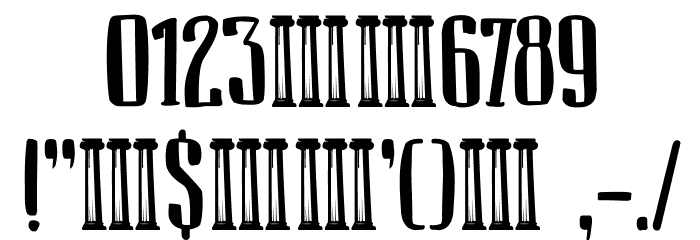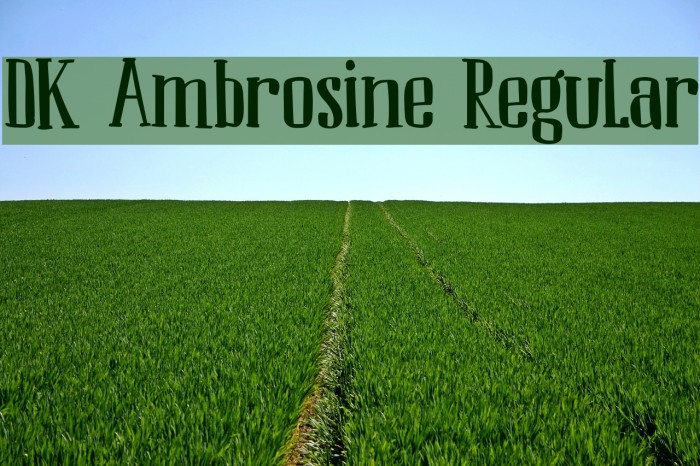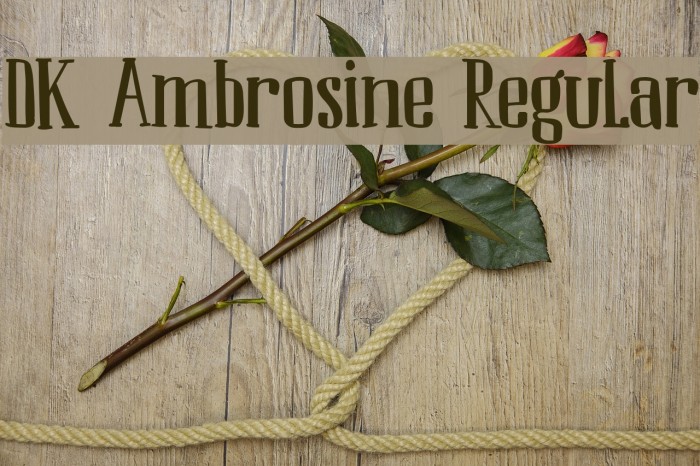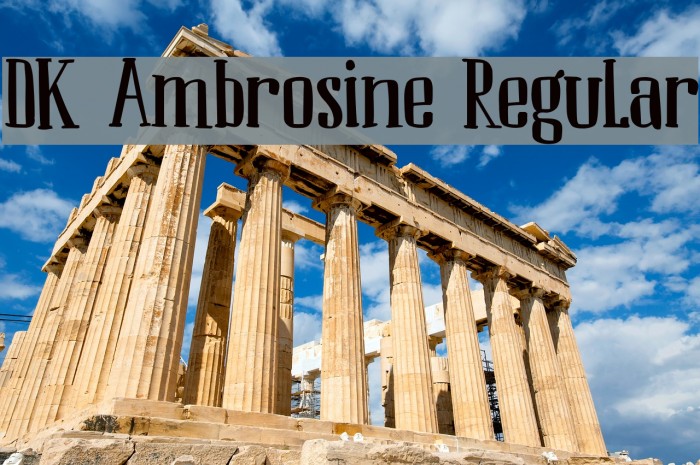
DK Ambrosine Regular Font
This font features a distinctive and bold design with a strong presence. The uppercase letters are tall and narrow, with a slight curve that adds a touch of elegance. The lowercase letters maintain a consistent style, offering a harmonious blend with the uppercase. The numerals are equally bold, ensuring visibility and clarity. Special characters are uniquely styled, adding a decorative flair. The overall design is reminiscent of vintage signage, making it ideal for projects that require a classic yet impactful look.
A bold, vintage-style font with tall, narrow letters and decorative elements.
- Proposed Projects: Ideal for vintage-themed posters, branding, and signage that require a strong visual impact.
- Overall Style: Vintage